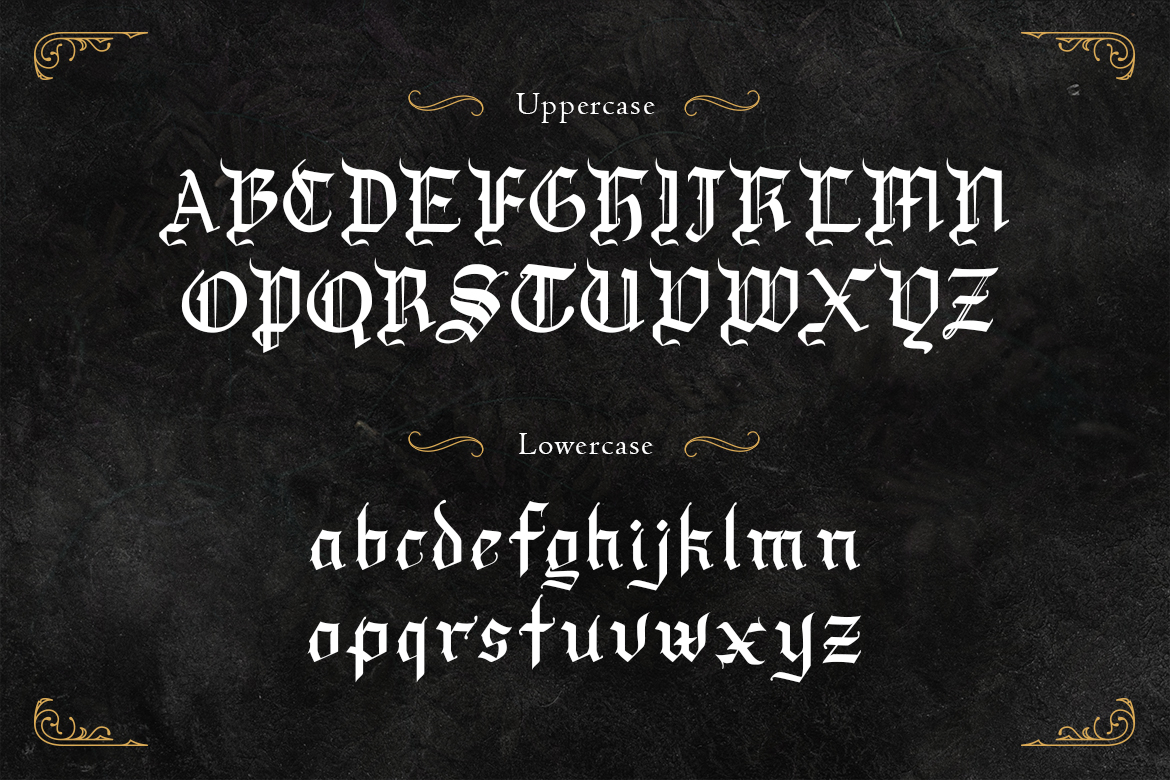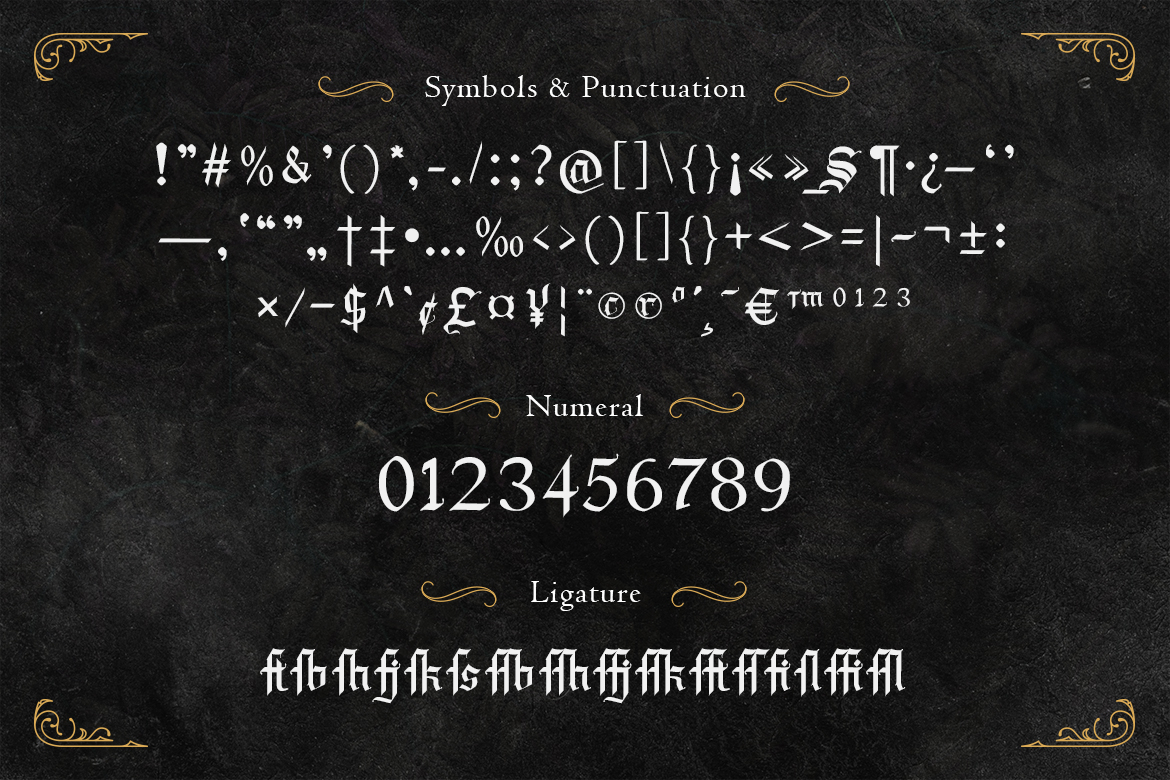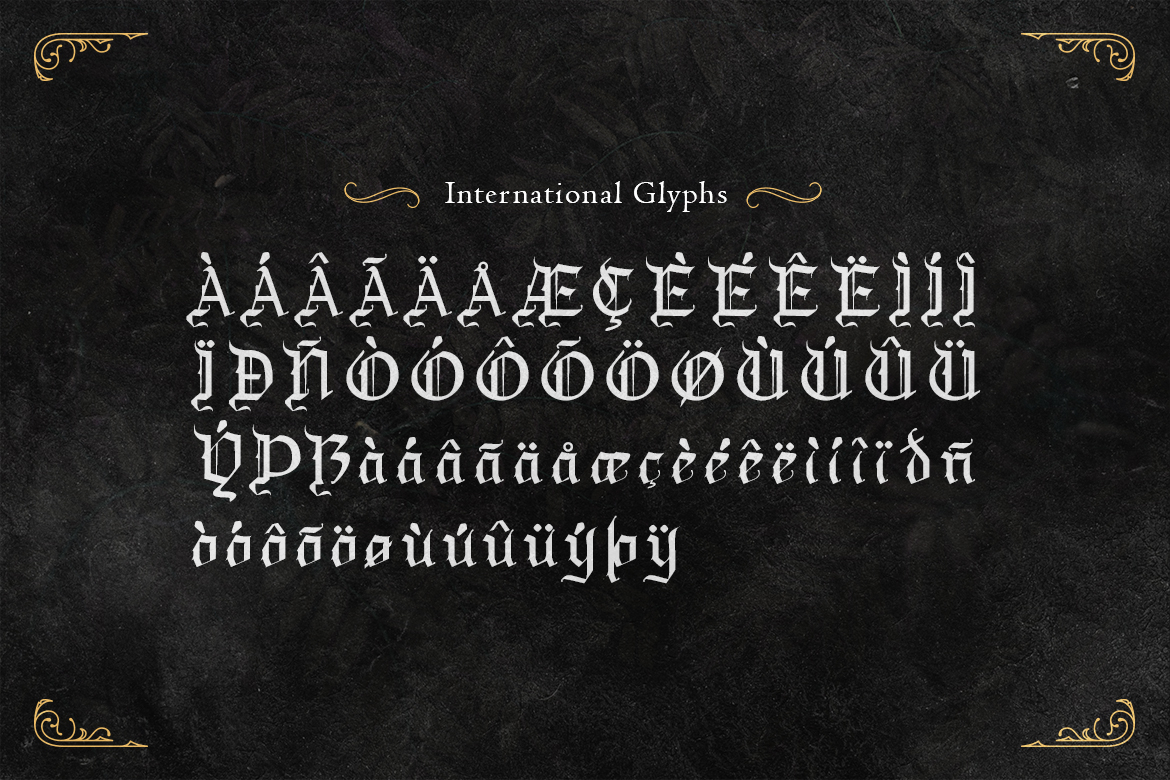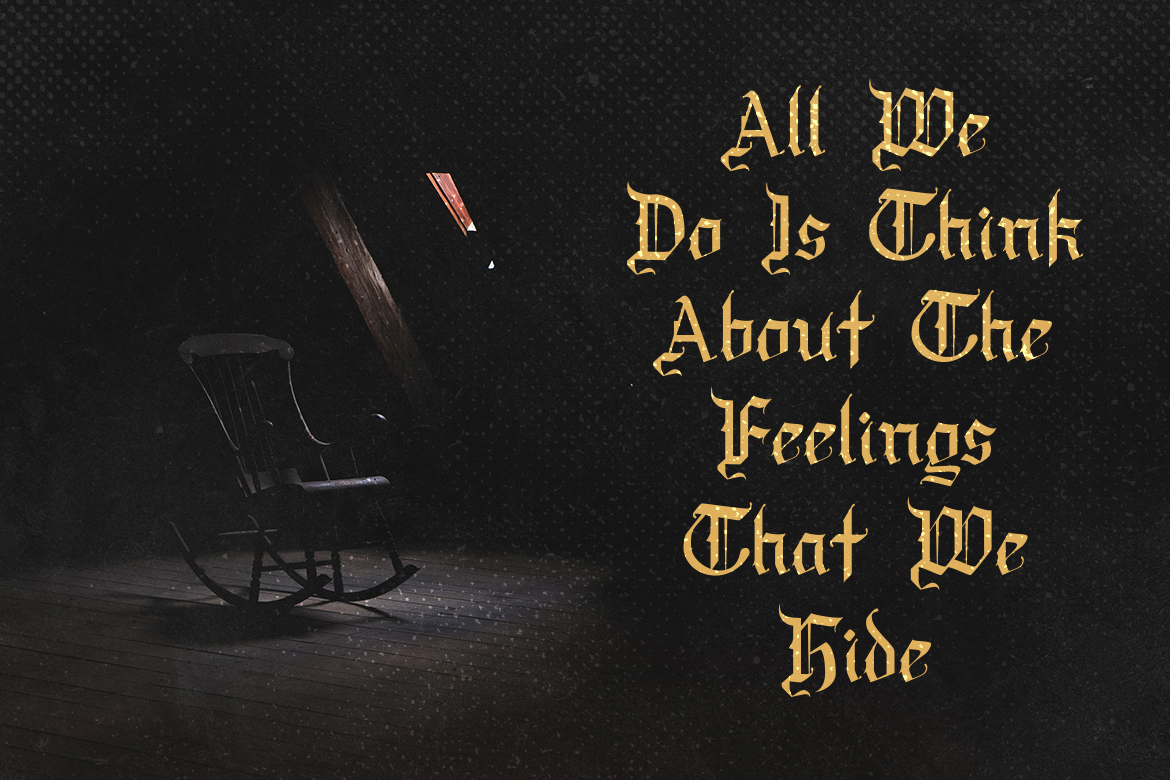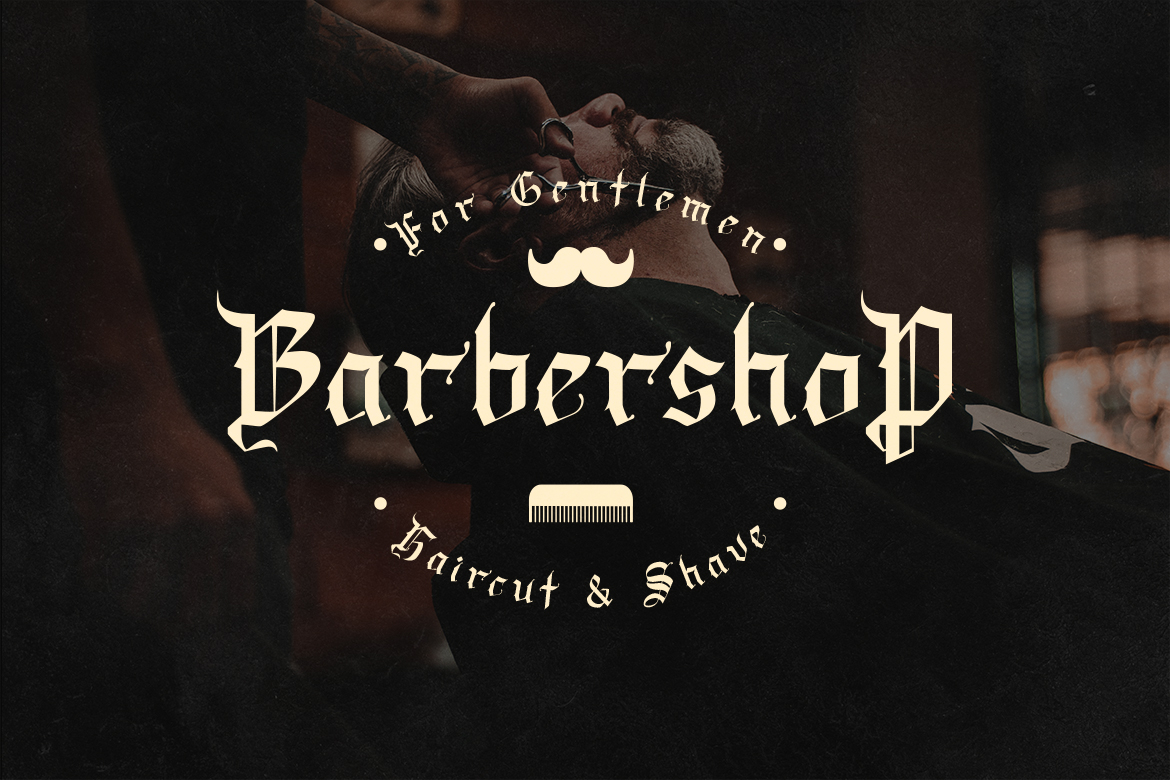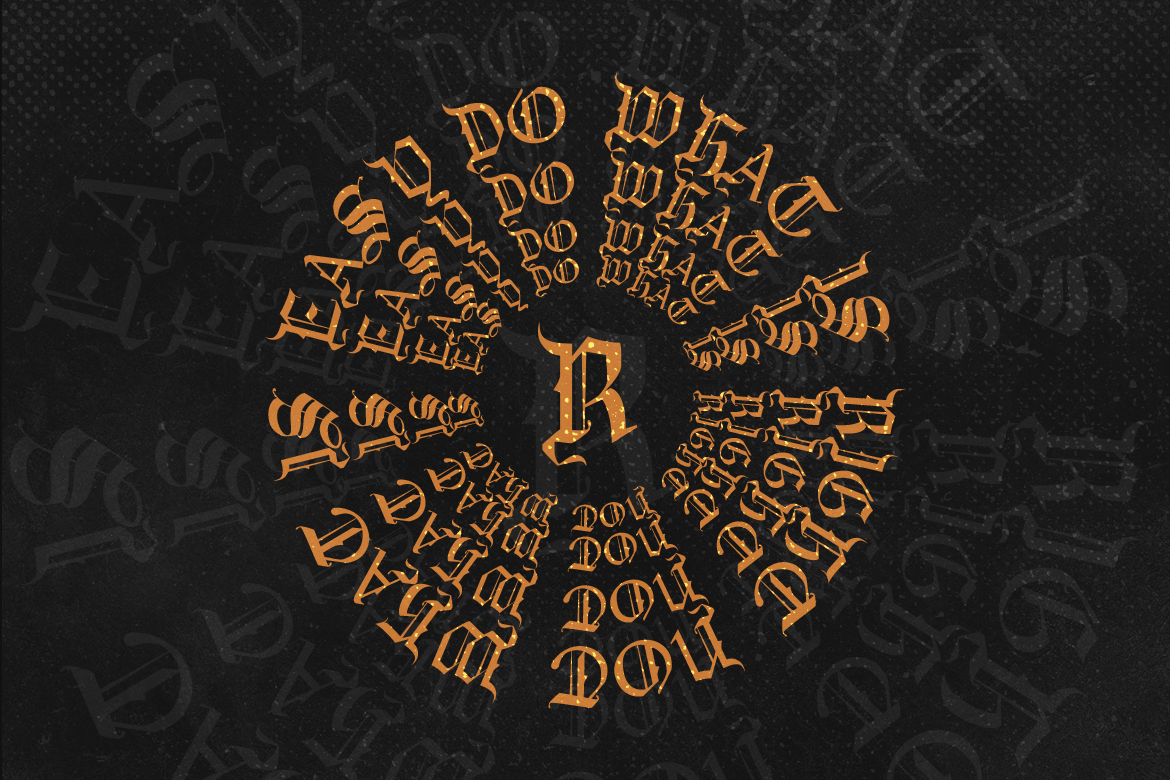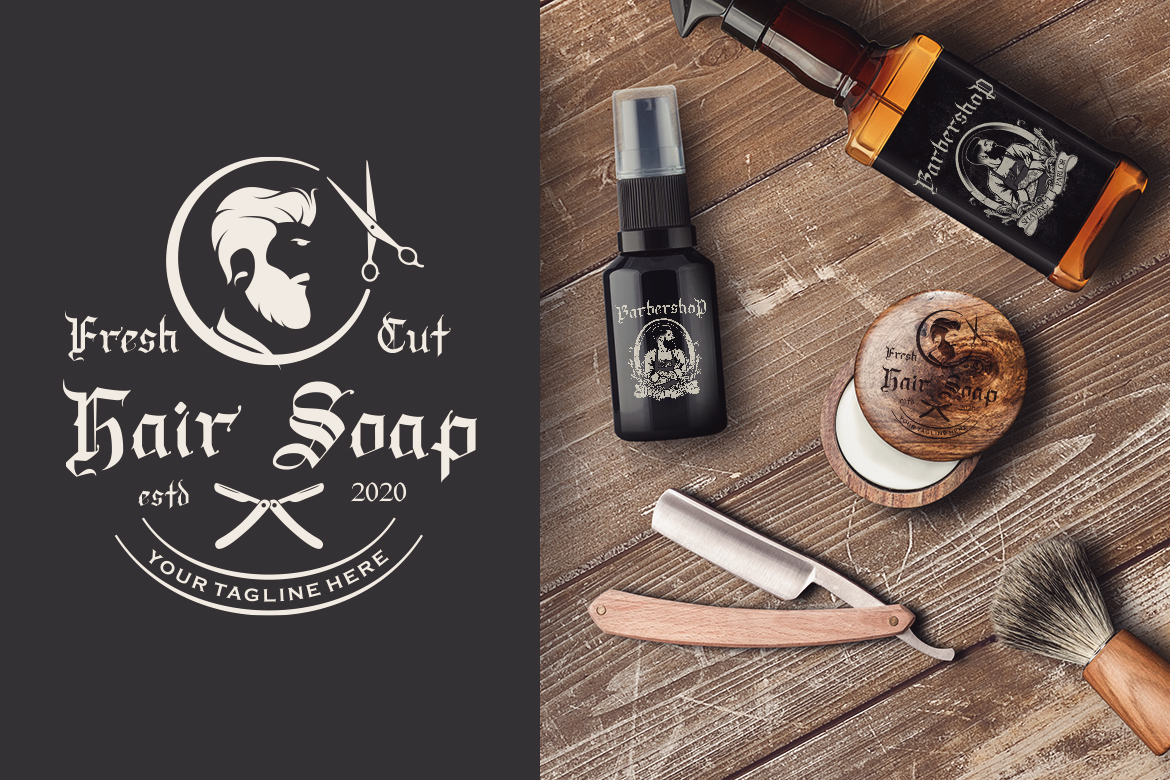
Draculie Font
About Draculie Font
Draculie is a gothic and authentic blackletter font. Suitable for tattoos, clothing, labels and packaging, branding, or any Gothic-themed projects, this font will make each of your designs stand out.